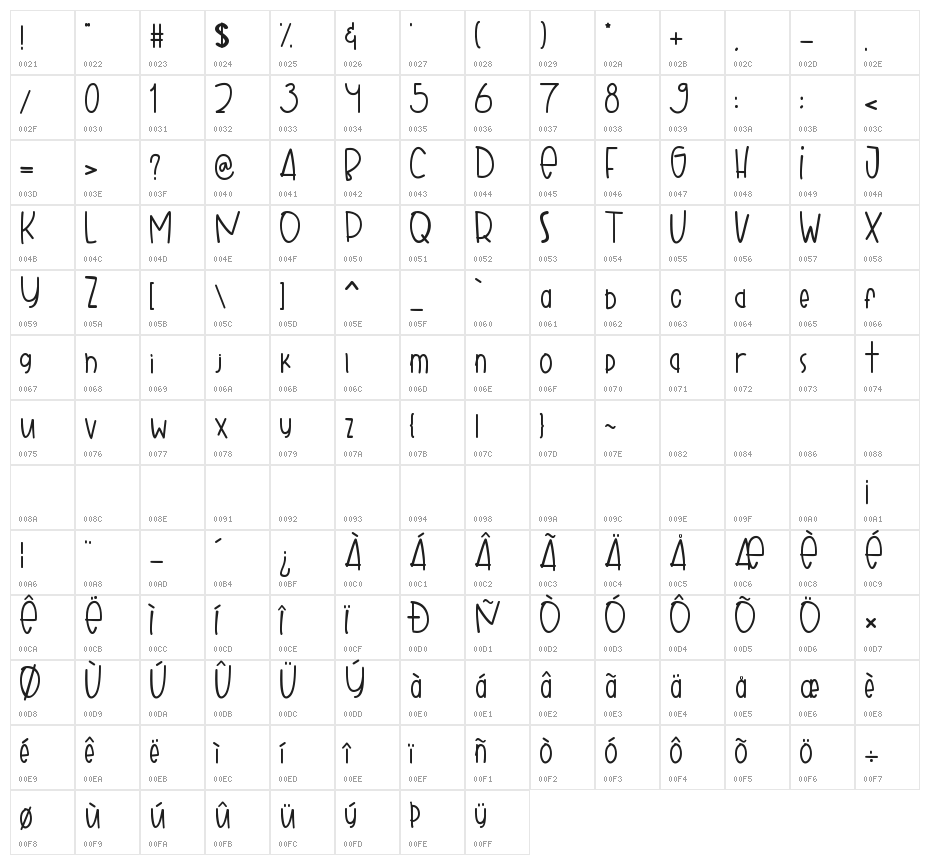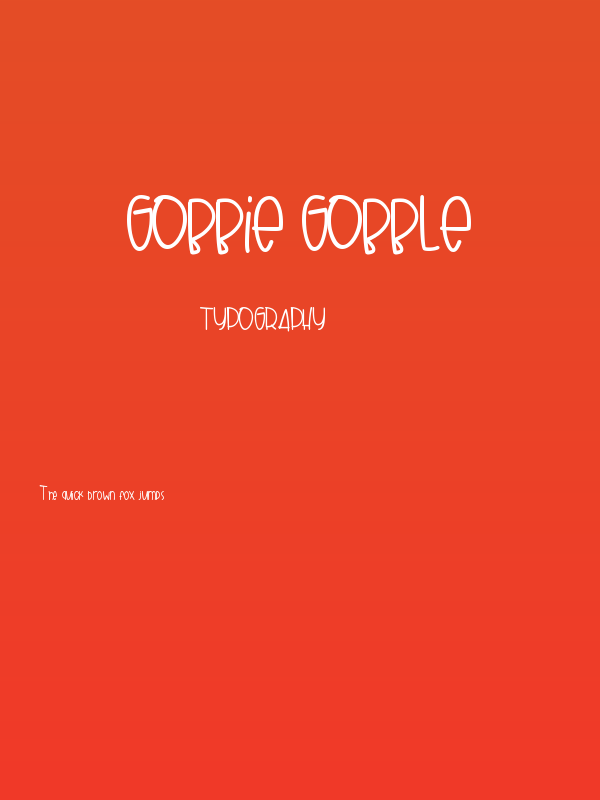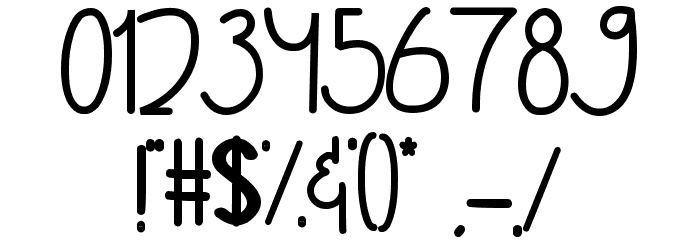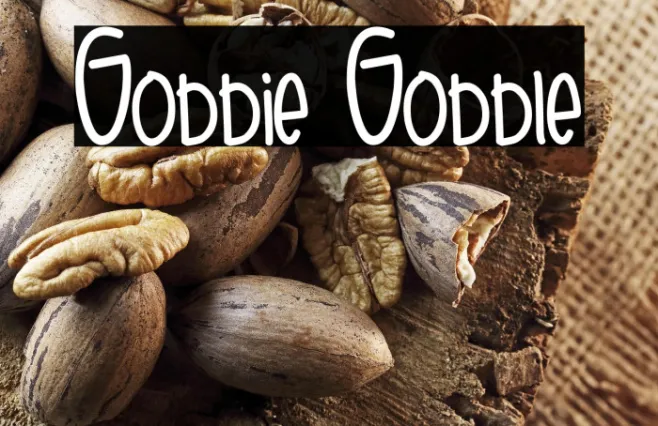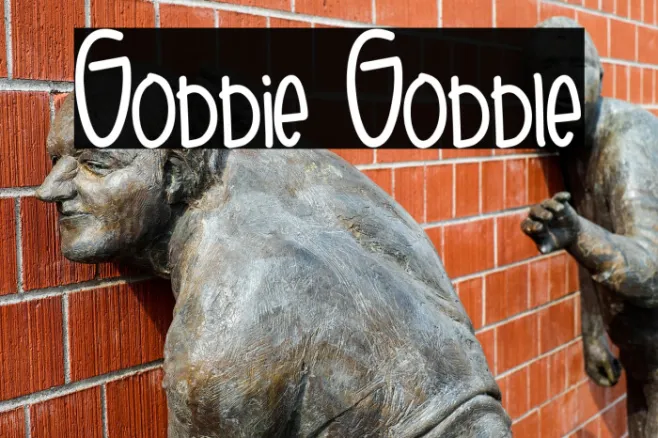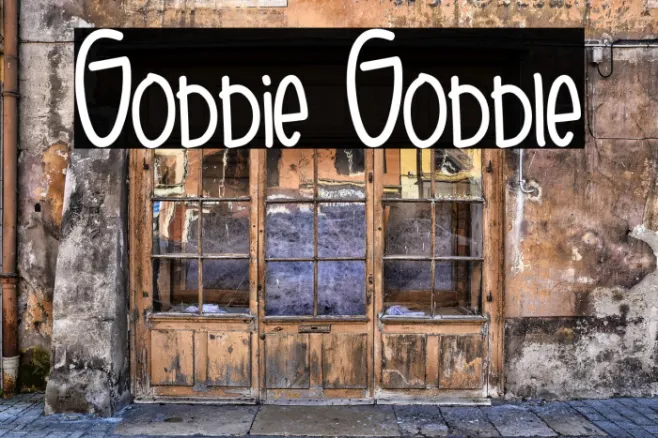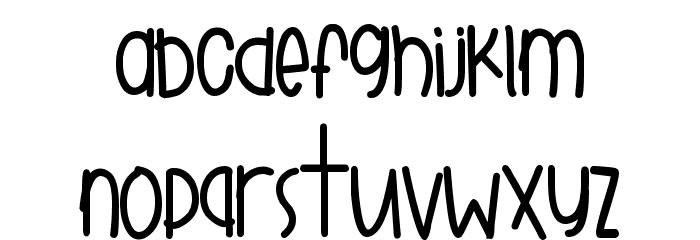
Gobbie Gobble Font
Gobbie Gobble Description
This playful and whimsical font features a handwritten style with a casual and friendly appearance. The characters are tall and slightly narrow, with a consistent stroke width that gives it a clean and uniform look. The uppercase letters have a quirky charm, while the lowercase letters maintain a smooth and flowing form. The numbers and special characters complement the overall style, making it versatile for various creative projects. Its informal and approachable design makes it suitable for fun and lighthearted applications.
| Proposed Projects | Ideal for children's books, greeting cards, playful branding, and casual invitations. |